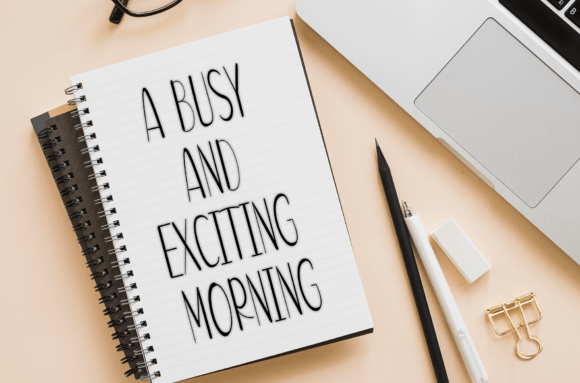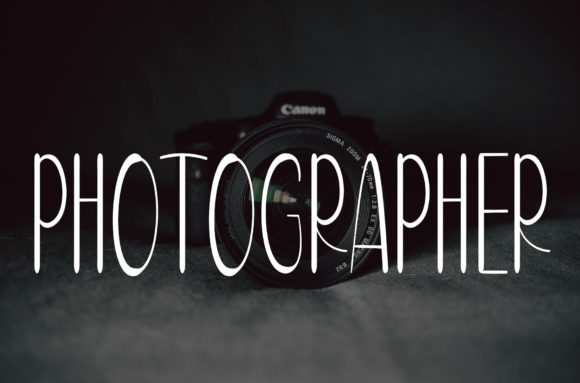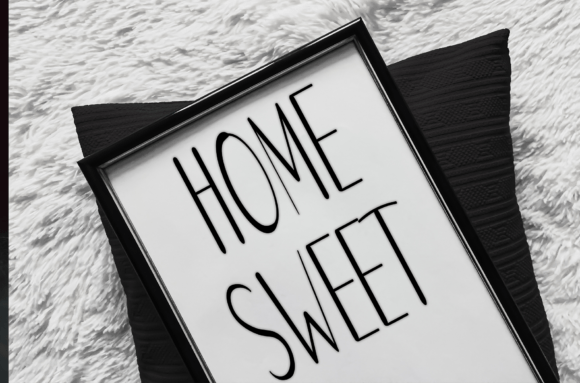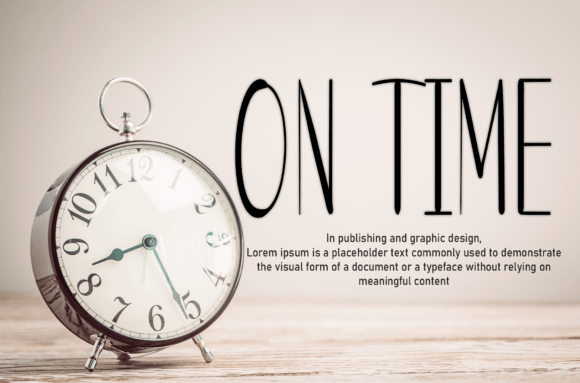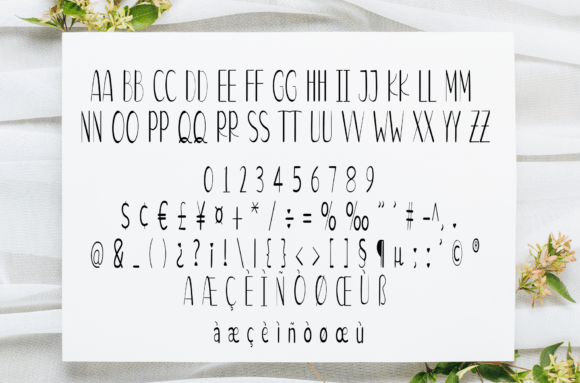
Introduction to Manage Blessed Font
Remember the moment when you stumbled upon the perfect design resource that elevated your creative project from good to great? For many designers, that moment is a game-changer. It’s the moment when all the pieces come together, and your vision starts to take shape. For those who have experienced this thrill, we’re excited to introduce the Manage Blessed Font – a cool, simple, and playful handwritten font that’s about to become your new design BFF.
Honest Review: Manage Blessed Font
I recently had the chance to use the Manage Blessed Font in one of my creative projects, and I must say it’s a solid addition to any design resource library. ✨
The font is free to download, which is always a plus, and its high quality makes it a great choice for any project that requires a clean and professional look. I particularly liked the transparent background option, which gave me a lot of flexibility when designing my layout.
Here are some of the things that work well with the Manage Blessed Font:
- Its versatility makes it suitable for a wide range of creative projects
- The font is highly customizable, allowing for easy adjustments to font size, color, and style
- The transparent background option makes it easy to layer text over images or other design elements
However, I did encounter a few limitations with the font:
- The font is not suitable for use in extremely small sizes, as the text can become difficult to read
- The font’s bold weight is not as robust as I would have liked
- The font’s italic weight can be a bit tricky to read in certain contexts
Overall, I’m impressed with the Manage Blessed Font, and I would definitely recommend it to designers looking for a high-quality, free font for their creative projects. ⚠️
Manage Blessed Font
Manage Blessed Font is a high-quality design resource available for free download. It’s perfect for any creative project requiring a unique and elegant touch.
For the best results, use Manage Blessed Font with a transparent background to create a clean and professional look. Experiment with different font sizes and styles to add depth and interest to your design.
Manage Blessed Font is perfect for:
- Graphic design projects and presentations